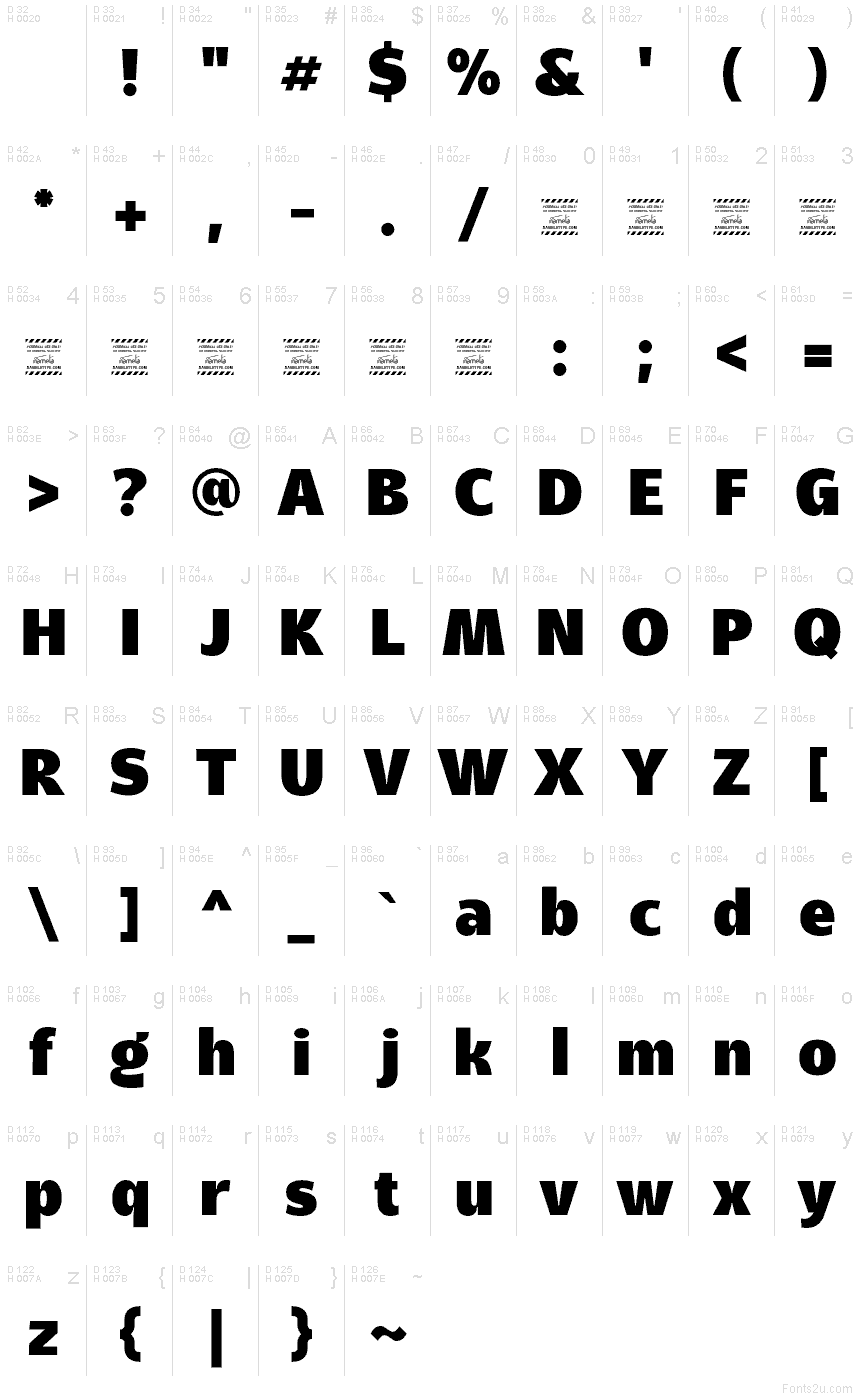
Gosent DEMO Black
Gosent Black font is a modern, bold creation by Namela Type, capturing a robust and dense design in its sans serif styling. Its professional tone is achieved with letters of varying shapes presented with moderately rounded corners and clearly modulated strokes. Highly functional in many projects, this free sans serif font also excites with its versatile and practical vibe.
Use it to make eye-catching headlines for magazines, newspapers, posters, flyers, websites or UX/UI designs in general. Gosent also works well when used to write body text whether on printed or digital mediums. Other use cases include package design projects for consumer goods and branding/visual identity designs including logos.